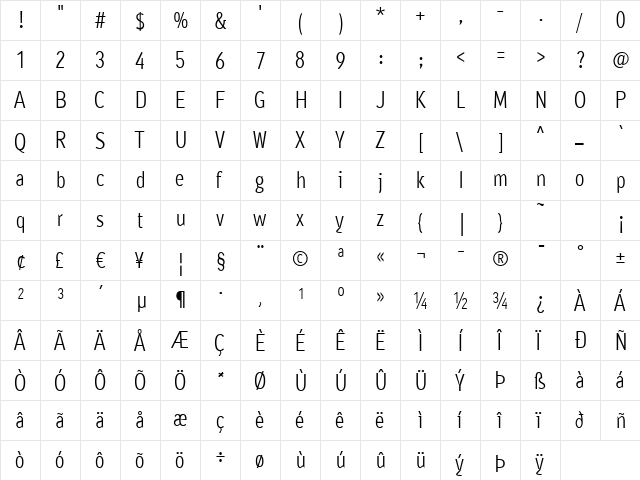
Ayumi Normal Regular Font Preview
Ayumi Normal Regular
Ayumi Normal Regular Font Details
Design Context for Ayumi Normal Typeface
Ayumi Normal offers clean, dependable letterforms without strong stylistic allegiance, making it a practical choice for designers who need flexibility.
Pro Tip: Use Ayumi Normal in both headline and body roles to test its range before committing to a single application.